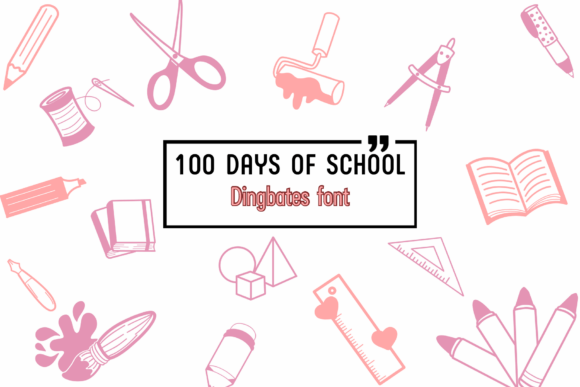
The Joy of Learning: Unlocking the 100 Days of School Font
As a designer, there’s nothing quite like the thrill of creating something that sparks imagination and excitement in others. Whether it’s a poster for a school event or a worksheet to make learning fun, the right font can make all the difference. And when it comes to celebrating the magic of education, there’s no better tool than the 100 Days of School Font.
This delightful collection of school-themed icons is designed to add a playful touch to any educational project. From books and pencils to rulers and scissors, the illustrations in this font are sure to bring a smile to students’ faces. And with its versatility, the 100 Days of School Font is an invaluable resource for designers looking to create engaging and educational content.
Key Features of “100 Days of School Font”
- Size: The font is designed to be used at various sizes, from 12pt to 72pt, making it suitable for a range of applications, including classroom decorations, certificates, and educational materials.
- Resolution: The font is designed to be resolution-independent, allowing it to be used at high resolutions without losing its clarity and readability.
- Unique Characteristics: The font features a distinctive, hand-drawn design with bold lines and playful letterforms, making it perfect for creating eye-catching and engaging educational materials.
- Scalability: The font is highly scalable, allowing it to be easily resized and adapted to different contexts and applications without losing its quality or clarity.
- Customizability: The font is fully customizable, allowing users to adjust the font size, color, and style to suit their specific needs and preferences.
100 Days of School Font Review
As a designer, I’ve had the opportunity to work with a variety of fonts, and I must say that the “100 Days of School Font” is a unique and attention-grabbing choice. ✨ The font’s playful and educational theme makes it perfect for school-related projects, such as worksheets, certificates, and other educational materials.
- The “100 Days of School Font” is a great choice for designers who want to add a touch of whimsy and fun to their projects.
However, there are a few limitations to consider: ⚠️ The font may not be suitable for formal or professional projects, as it may come across as too playful or juvenile. Additionally, the font’s customization options may be limited, which could make it difficult to achieve a specific look or feel.
Overall, I think the “100 Days of School Font” is a great choice for designers who are looking for a fun and educational font to add to their projects. While it may have some limitations, the font’s unique theme and customization options make it a great option for the right project.